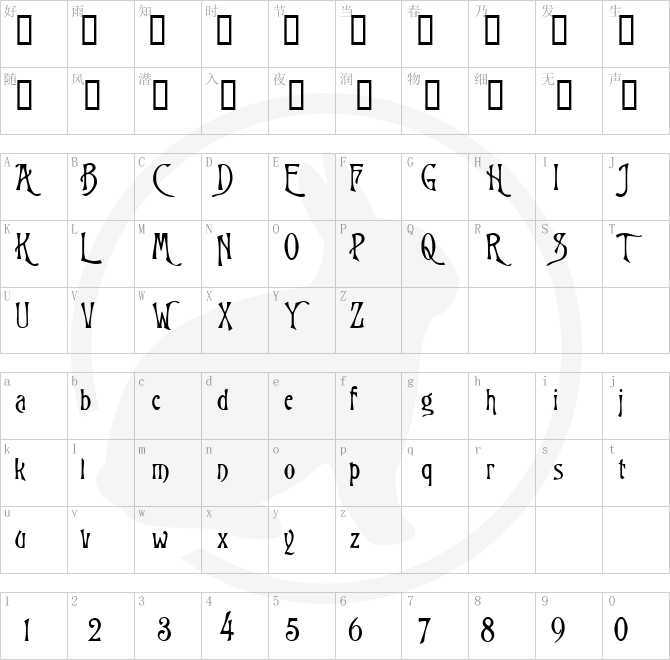
- Font Name:Nachtmere
Nachtmere.ttf is a very beautiful artistic font, Nachtmere.ttf is widely used in the design and printing of various books and pictures,Nachtmere.ttf has a strong visual impact,Nachtmere.ttf is a commonly used font in newspapers, magazines and books, and is used in posters, e-commerce Poster design, store design, logo design, font design and other fields.Nachtmere.